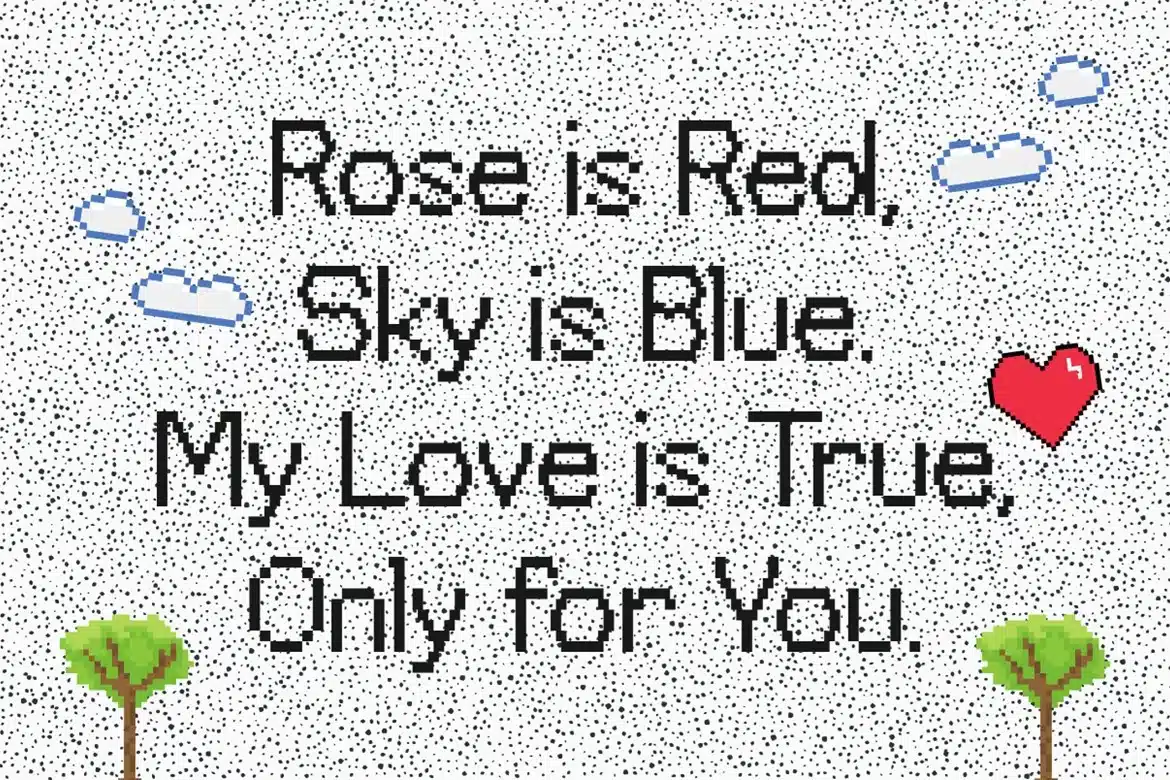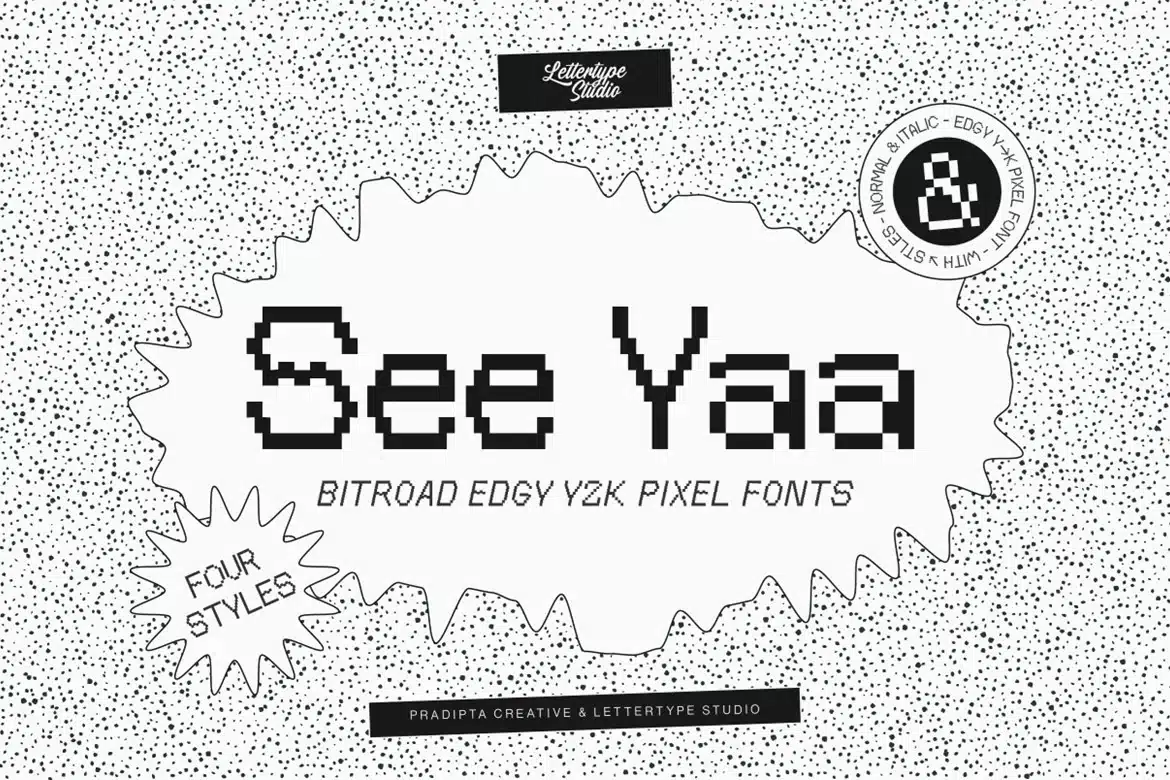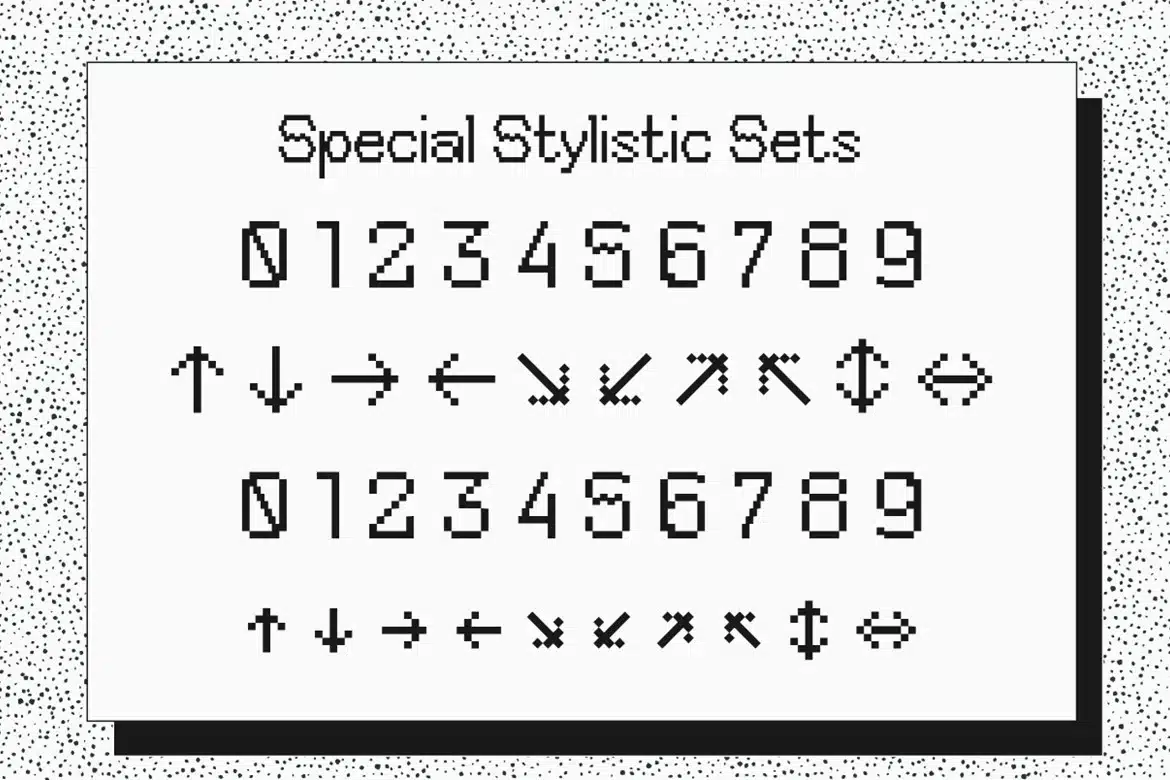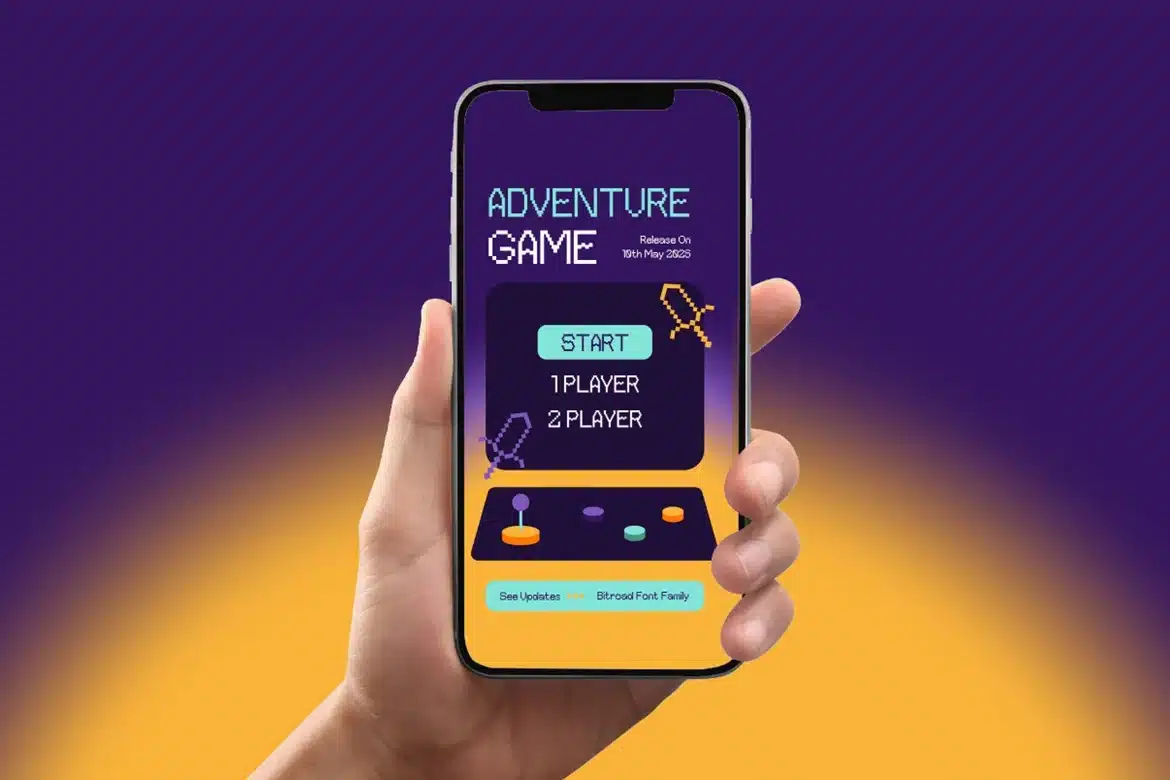
Bitroad Edgy Y2K Pixel Font
Bitroad is an edgy pixel Y2K fonts that combine nostalgic 80's and 2000's styles, perfect for bold, retro-inspired designs. These versatile fonts, ideal for headlines, logos, pixel games, 8-bit games interface, and editorial use, bring a playful yet impactful touch to any project.
Bitroad Font offering multiple styles and multilingual support, elevates your digital and print creations with a unique vintage flair. This font works in large and small sizes and includes 4 styles normal, italic, monospaced, and mono-italic.
Bitroad Comes With:
- Lowercase & Uppercase
- Alternates & Ligature
- Font Family (4 Styles)